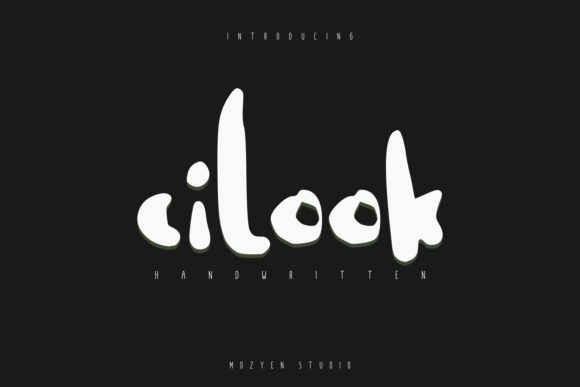
Cilook Font: The Ultimate Choice for Creative Designs
In the world of typography, fonts play a crucial role in making a design stand out. Among the numerous fonts available, Cilook Font has gained significant attention for its unique and captivating appearance. This article will delve into the features and benefits of Cilook Font, making it a must-read for designers, crafters, and anyone looking to add a personal touch to their creations.
What is Cilook Font?
Cilook is a cool looking and uniquely shaped display font that has been making waves in the design community. Its distinctive style makes it an excellent choice for a wide range of projects, from cartoon-related designs and children’s games to any creation that requires a lovely touch. The font’s playful and charming appearance is sure to capture the attention of your audience and leave a lasting impression.
Key Features of Cilook Font
• Unique Shape: Cilook Font boasts a one-of-a-kind shape that sets it apart from other fonts. Its distinctive style is sure to make your designs stand out.
• Playful and Charming: The font’s playful and charming appearance makes it perfect for designs that require a personal touch.
• Display Font: Cilook Font is a display font, making it ideal for headlines, titles, and other prominent text elements.
• Versatile: The font can be used for a wide range of projects, from cartoon-related designs and children’s games to posters, flyers, and more.
Benefits of Using Cilook Font
So, why should you choose Cilook Font for your next project? Here are some benefits that make it an excellent choice:
• Adds a Personal Touch: Cilook Font adds a personal touch to your designs, making them more relatable and engaging.
• Increases Readability: The font’s clear and legible design ensures that your message is conveyed effectively.
• Enhances Creativity: Cilook Font’s unique style inspires creativity, allowing you to experiment with different design ideas.
• Time-Saving: With Cilook Font, you can create stunning designs in no time, saving you time and effort.
Who Can Benefit from Cilook Font?
Cilook Font is an excellent choice for a variety of designers and crafters, including:
• Graphic Designers: Add a personal touch to your designs and make them stand out with Cilook Font.
• Illustrators: Use Cilook Font to add a playful and charming touch to your illustrations.
• Game Developers: Create engaging and interactive games with Cilook Font’s unique style.
• Crafters: Add a personal touch to your handmade crafts, such as cards, gift tags, and more.
In conclusion, Cilook Font is an excellent choice for designers and crafters looking to add a personal touch to their creations. Its unique shape, playful and charming appearance, and versatility make it a must-have font for any design project. Whether you’re a graphic designer, illustrator, game developer, or crafter, Cilook Font is sure to inspire your creativity and help you create stunning designs.